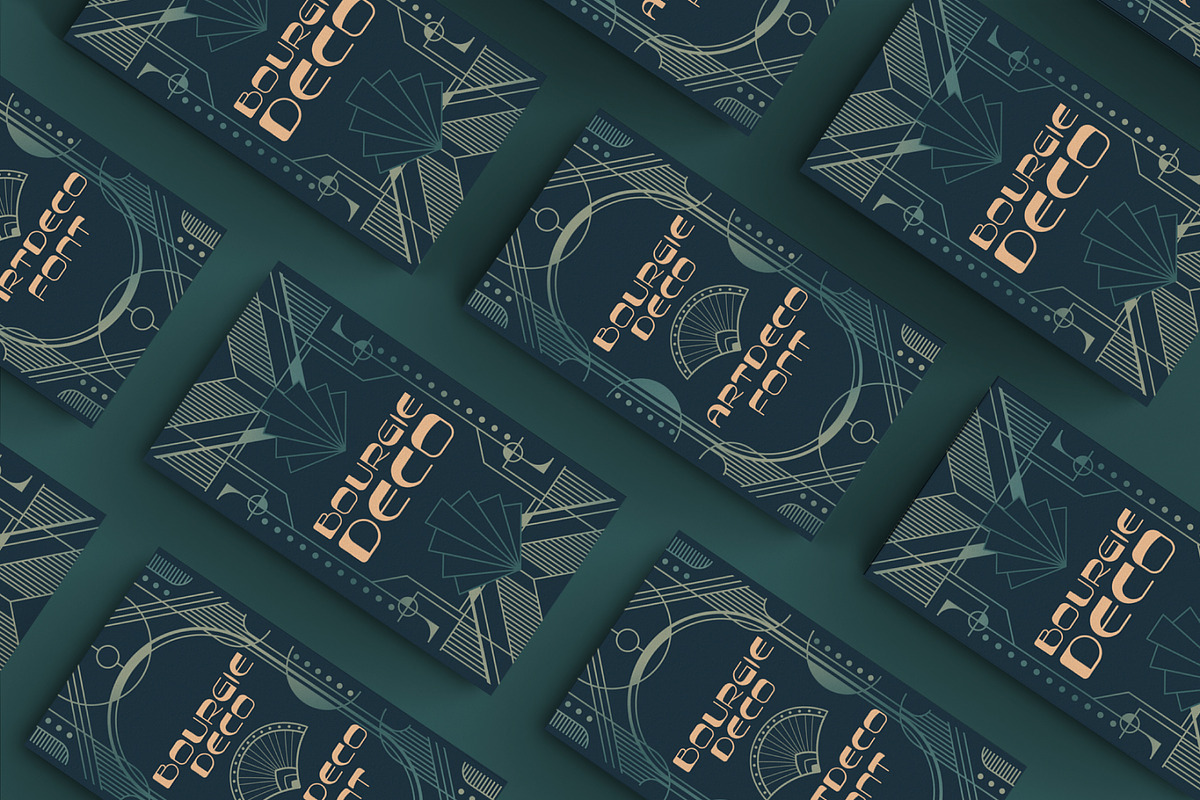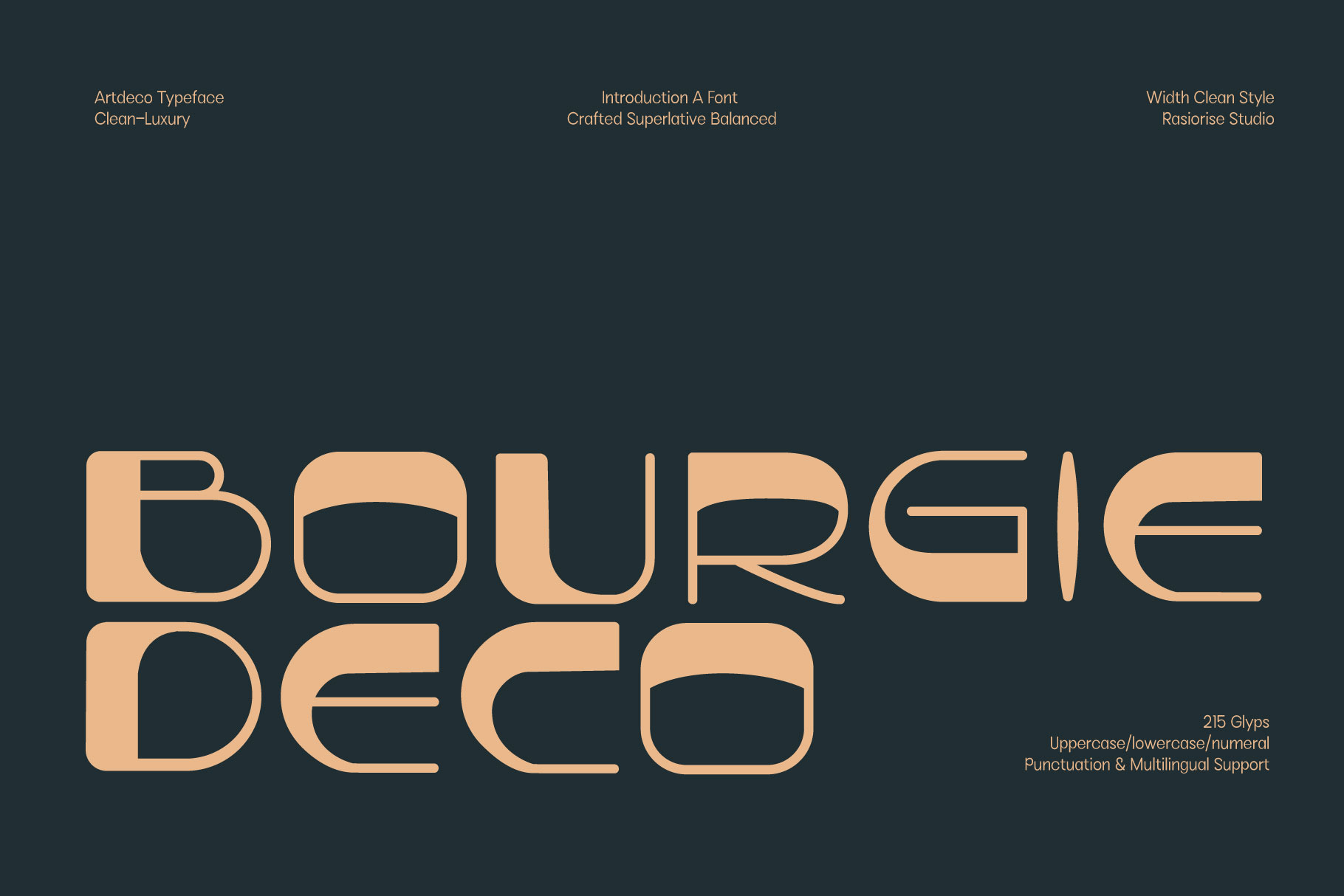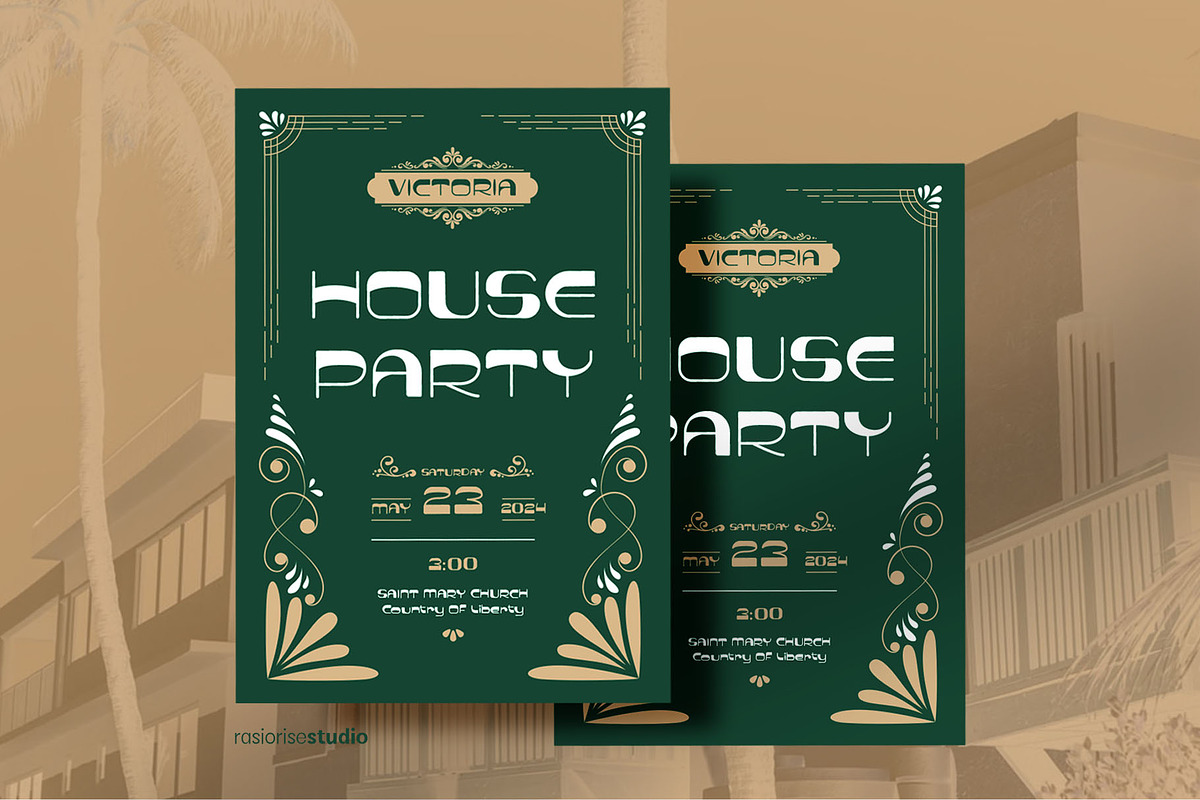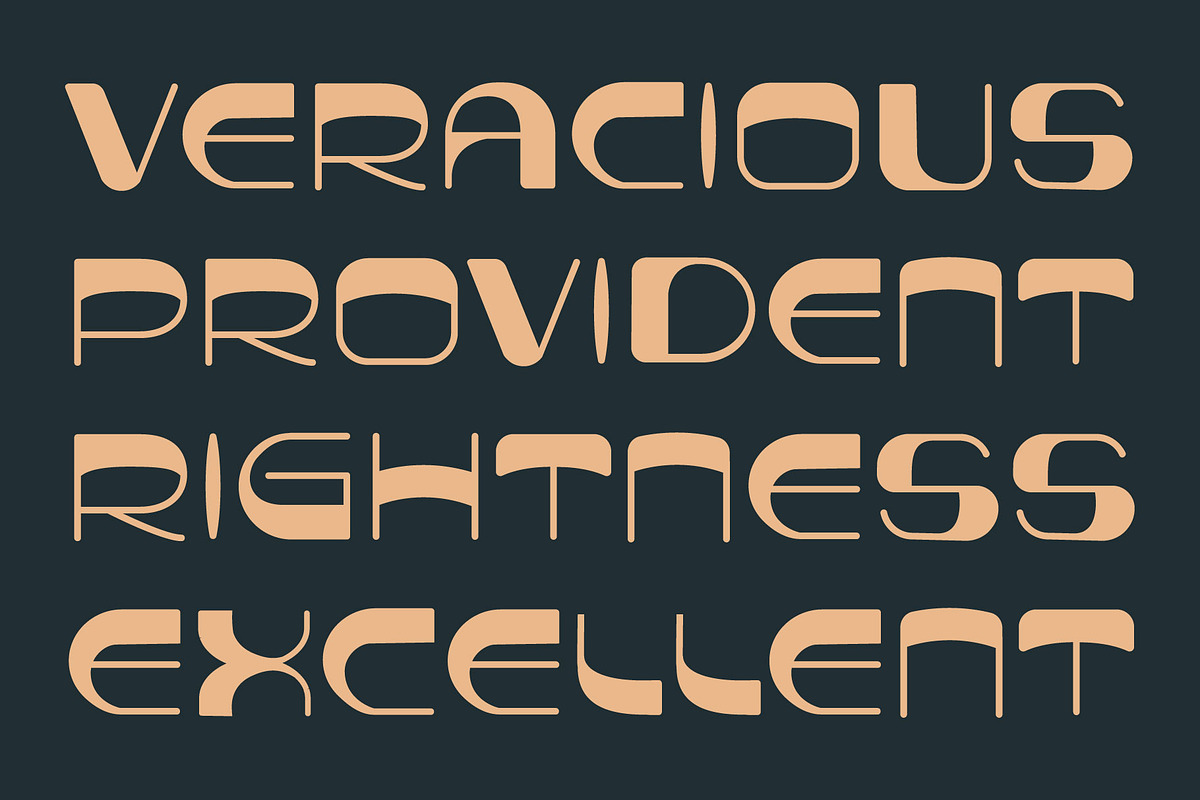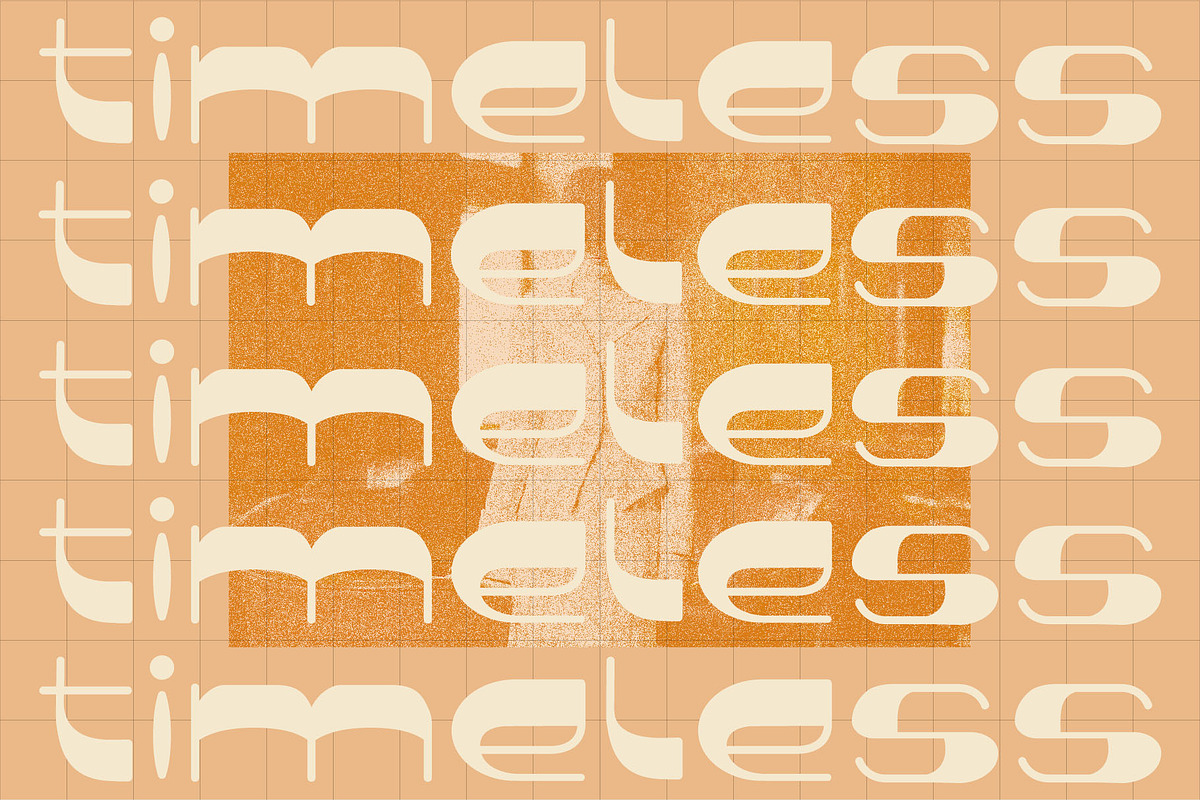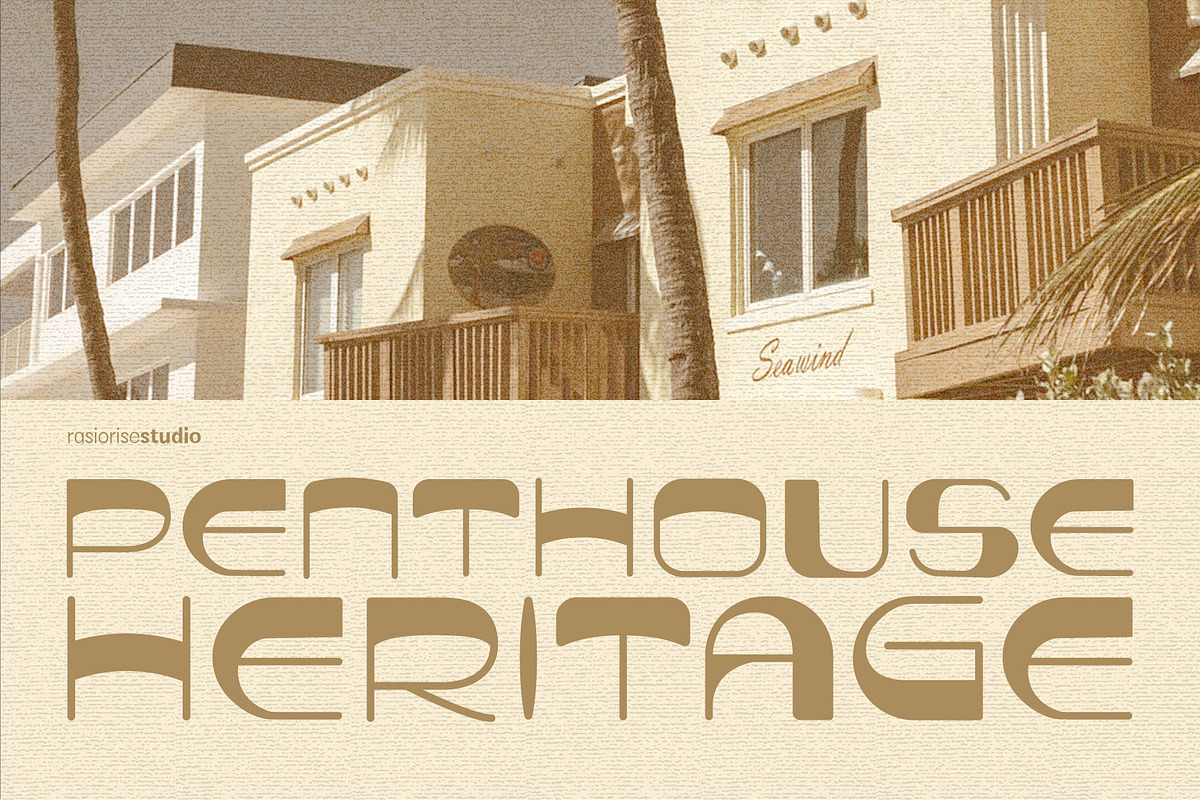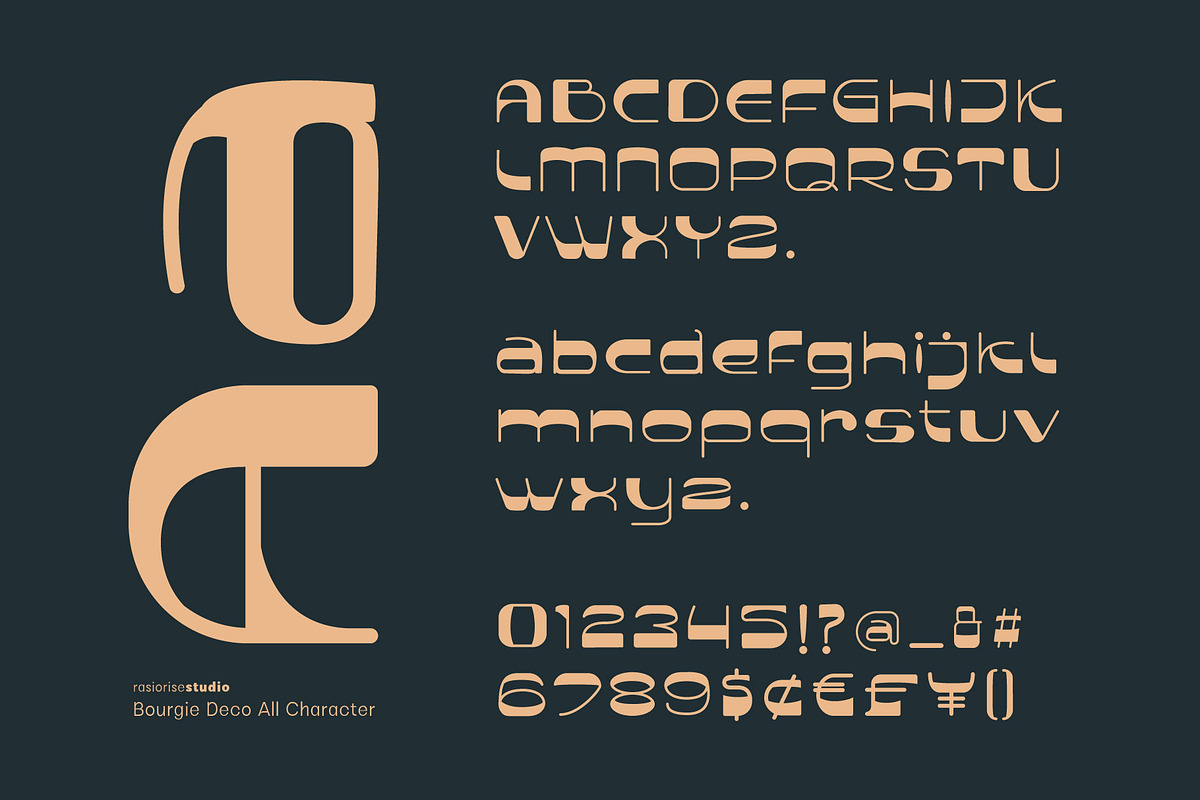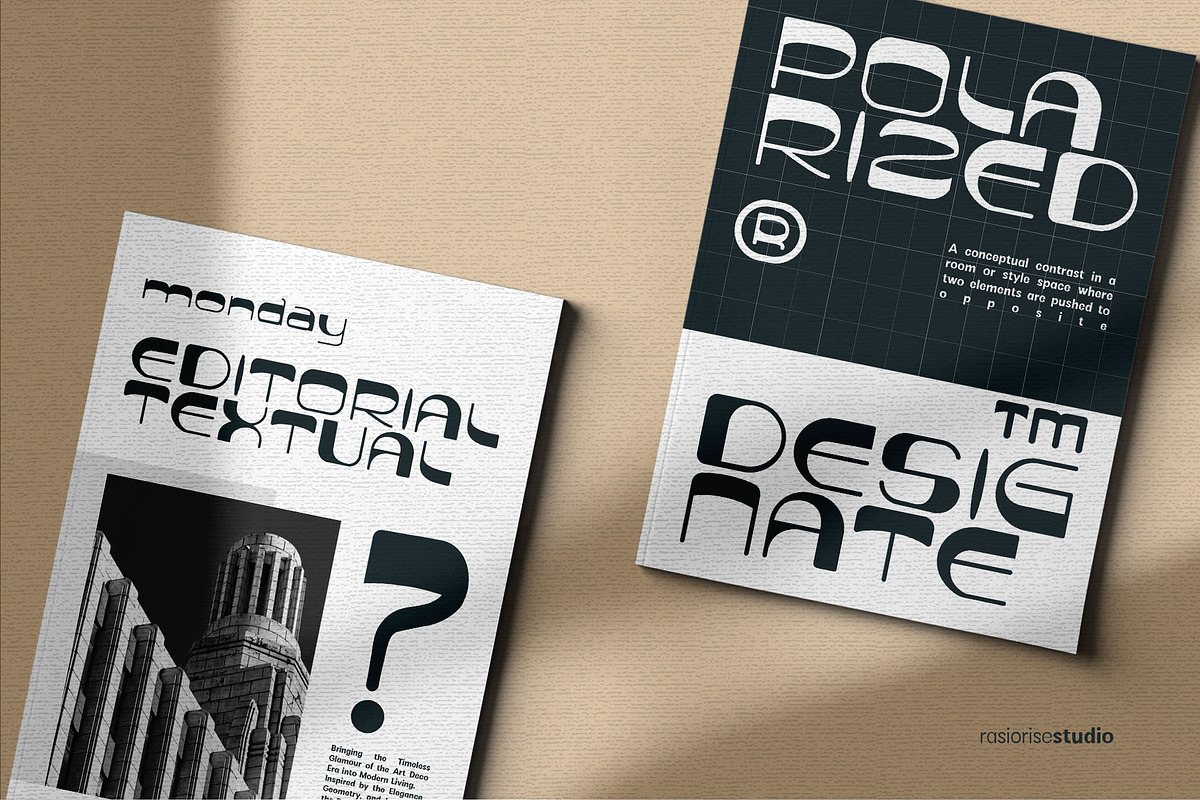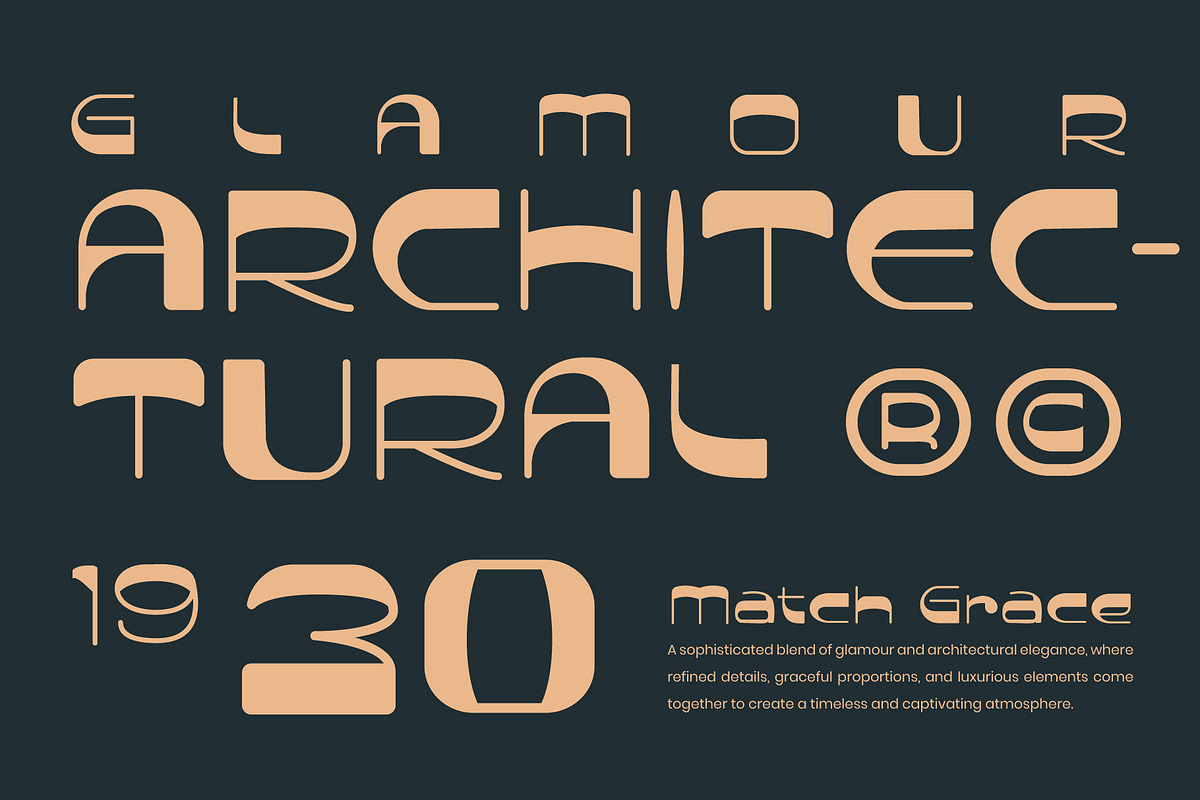
Bourgie Deco a ArtDeco Font
Hello Everyone! The Font Bourgie Deco is now available for people searching for a modern ArtDeco font. The architec and visual style 1910s font styles served as inspiration for this design. Some unique, modern and futuristic such as uppercase dan lowercase character regular types, were combined to give the typeface a bolder, unique and modern appearance.